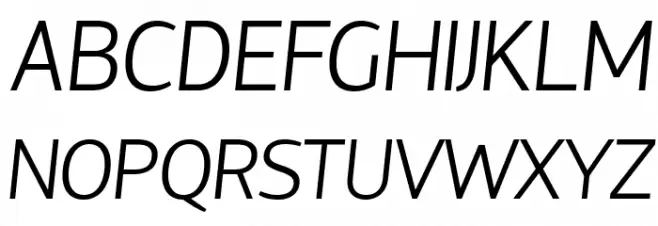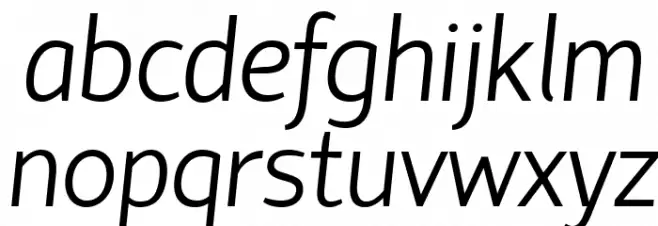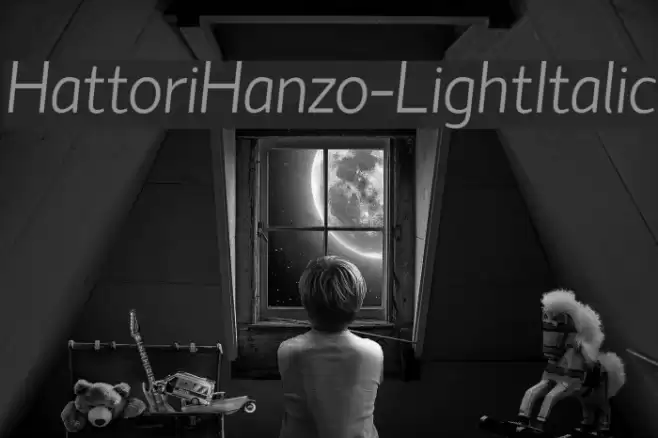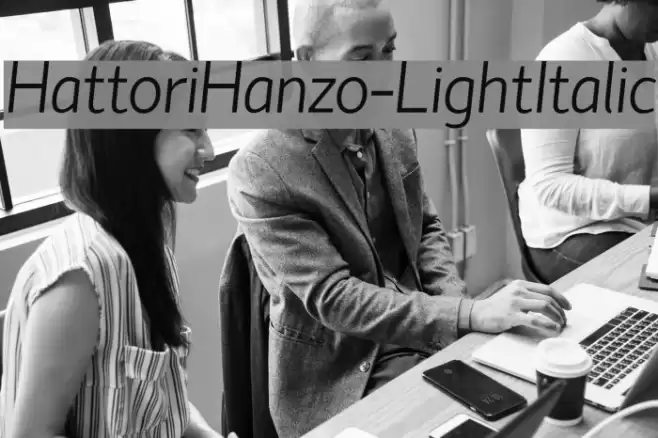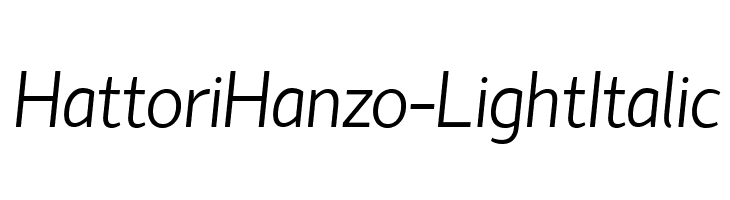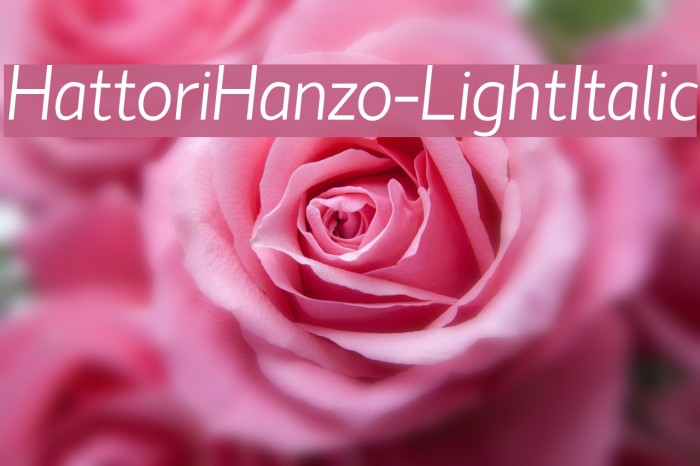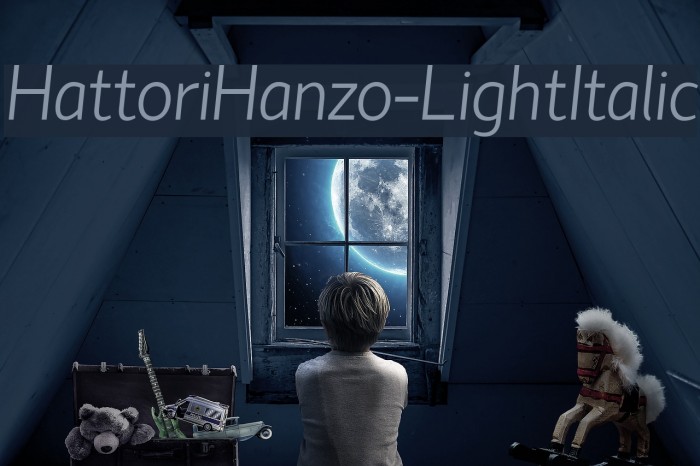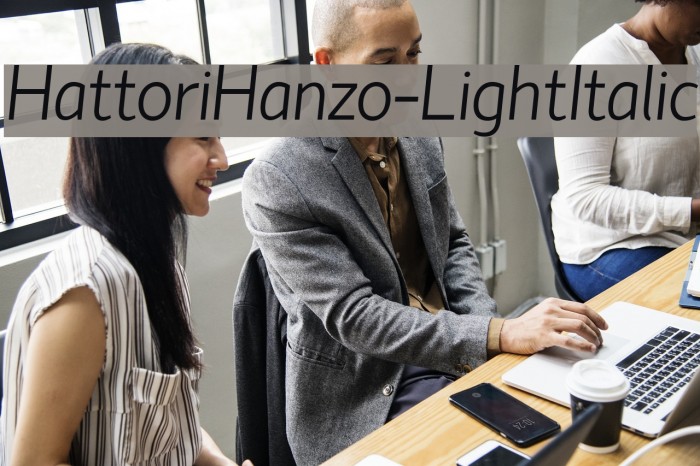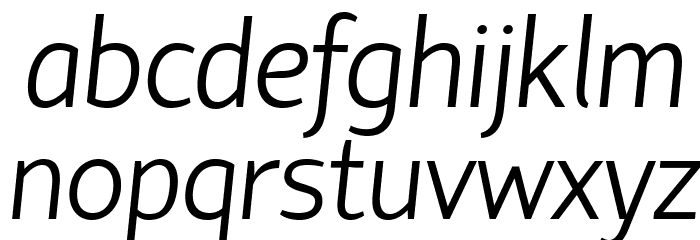
HattoriHanzo-LightItalic
This font features a sleek and modern design with a light weight and italic style. The characters are slightly slanted, giving it a dynamic and elegant appearance. The strokes are consistent and smooth, with a medium contrast that enhances readability while maintaining a stylish look. The uppercase and lowercase letters are well-proportioned, and the numerals are clear and distinct. Special characters are included, adding versatility to its use. The overall aesthetic is clean and professional, making it suitable for a variety of design applications.
A sleek, modern, light italic font with medium contrast and smooth strokes.